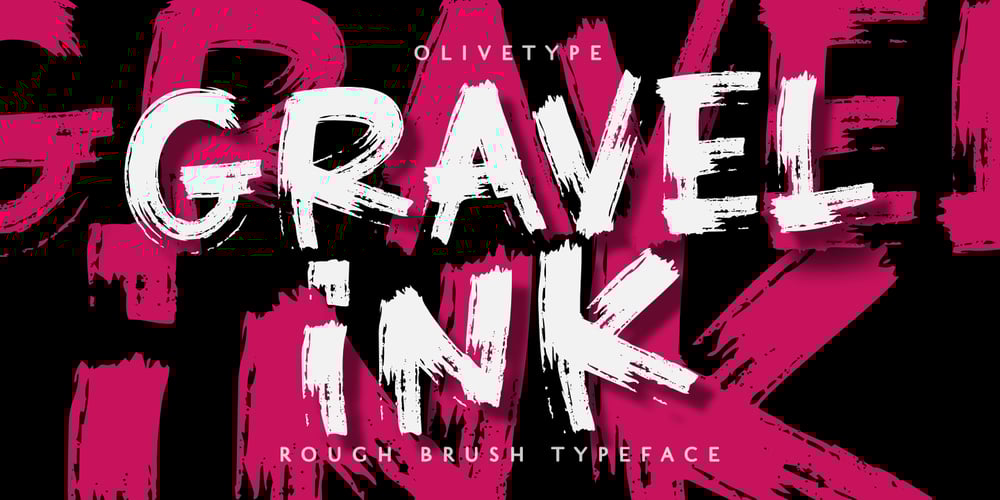
Gravel Ink Font Family was designed by Aldy Sidik, Nurul Hidayani and published by Olivetype. Gravel Ink contains 1 styles and family package options. Gravel Ink is the perfect font for rough and tough designs. It has a cool, edgy look that’s perfect for logos, headlines, and other creative projects. Gravel Ink is also very fun to use – its brush-style letters are great for creating unique designs that stand out from the crowd. So if you’re looking for a tough, gritty, stylish font that’s also a lot of fun to work with, Gravel Ink is a perfect choice!So what’s included : Basic Latin Uppercase and Lowercase Numbers, symbols, and punctuations Multilingual Support. Accented Characters : ÀÁÂÃÄÅÆÇÈÉÊËÌÍÎÏÑÒÓÔÕÖØŒŠÙÚÛÜŸÝŽàáâãäåæçèéêëìíîïñòóôõöøœšùúûüýÿžß PUA Encoded and fully accessible without additional design software Simple Installations works on PC & Mac Thank You!